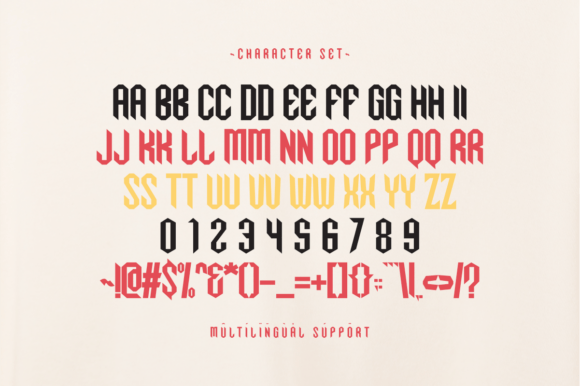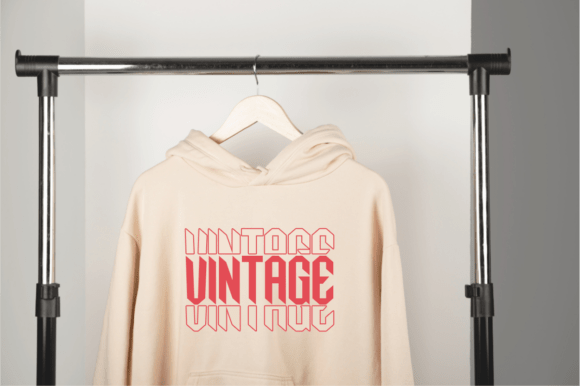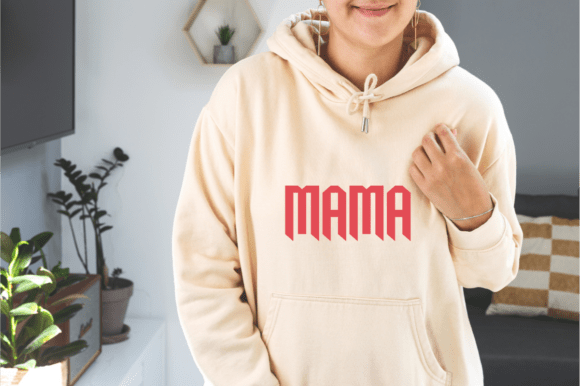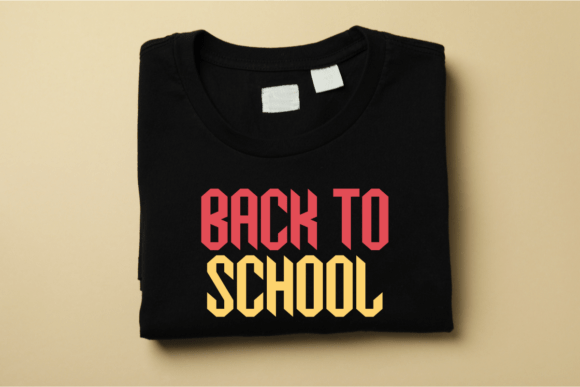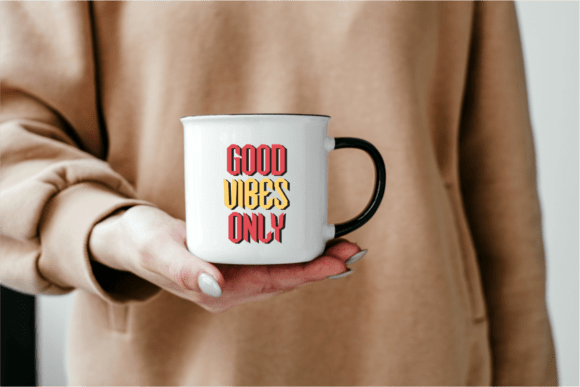
Introducing Abcd Font: The Modern Quirky Display Font for Creative Projects
In the world of creative design, fonts play a crucial role in conveying messages, evoking emotions, and capturing attention. For crafters, sublimation artists, and creators on platforms like Etsy and Cricut, finding the right font can make all the difference in bringing their ideas to life. This is where Abcd Font comes in – a modern quirky display font that makes a bold and distinctive statement in any creative project.
What Makes Abcd Font Stand Out?
Abcd Font boasts unique geometric shapes and a strong presence that is perfect for grabbing attention. Its clean lines and contemporary feel lend themselves beautifully to designs that require both impact and a touch of modern flair. Whether you’re looking to create eye-catching t-shirt designs, personalized mugs, custom tumblers, stylish tote bags, intriguing wall art, innovative craft projects, unique stationery, or compelling branding materials, Abcd Font is the ideal choice.
Perfect for Crafters and Creators
Crafters and creators on platforms like Etsy and Cricut know how important it is to have a font that can keep up with their creative vision. Abcd Font is designed to shine on a variety of items, including:
- T-shirt designs: Create bold and stylish tees that make a statement.
- Personalized mugs: Add a touch of personality to everyday coffee mugs.
- Custom tumblers: Make unique and eye-catching tumblers that stand out.
- Stylish tote bags: Design bags that are both functional and fashionable.
- Intriguing wall art: Create stunning wall art that adds a touch of modern flair to any room.
- Innovative craft projects: Bring your creative ideas to life with Abcd Font.
- Unique stationery: Design stationery that is both stylish and functional.
- Compelling branding materials: Create branding materials that make a lasting impression.
Why Choose Abcd Font?
Abcd Font offers a range of benefits that make it an ideal choice for crafters, sublimation artists, and creators. Some of the key advantages of using Abcd Font include:
- Unique and distinctive: Abcd Font offers a unique and distinctive style that sets it apart from other fonts.
- Versatile: Abcd Font can be used on a variety of items, from t-shirt designs to branding materials.
- Modern and quirky: Abcd Font has a modern and quirky feel that is perfect for creative projects.
- Easy to read: Despite its bold and quirky style, Abcd Font is easy to read and understand.
Tips for Using Abcd Font
To get the most out of Abcd Font, here are some tips for using it in your creative projects:
- Experiment with colors: Abcd Font looks great in a range of colors, so don’t be afraid to experiment and find the perfect hue for your project.
- Play with sizes: Abcd Font can be used in a range of sizes, from small and subtle to large and bold.
- Combine with other fonts: Abcd Font pairs well with other fonts, so feel free to combine it with other styles to create a unique look.
Abcd Font is a modern quirky display font that is perfect for crafters, sublimation artists, and creators on platforms like Etsy and Cricut. Its unique geometric shapes and strong presence make it an ideal choice for capturing attention and making a bold statement in any creative project. With its clean lines and contemporary feel, Abcd Font is versatile and easy to use, making it a great addition to any design toolkit.